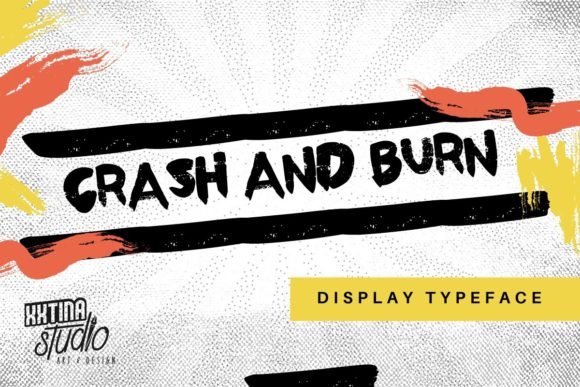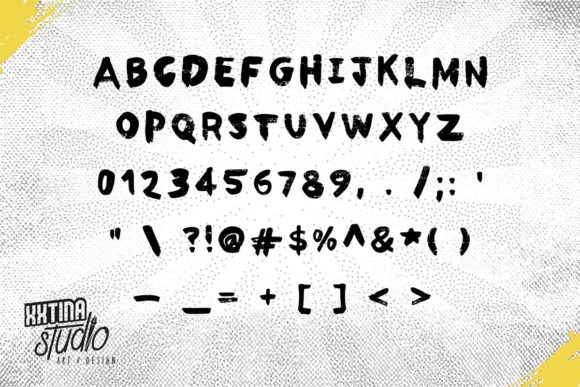
The Perfect Blend of Edginess and Style
We’ve all been there – staring at a blank canvas, a blank page, or a blank slate, trying to come up with the perfect idea to capture our audience’s attention. It’s those moments of creative frustration that often lead to the most innovative solutions. For designers, one of the most exciting moments is when a new font comes along and shakes things up. And that’s exactly what the Crash and Burn Font does – it brings a fresh, grunge-inspired aesthetic that’s guaranteed to make a statement.
With its all-caps display typeface and distressed, texturized look, the Crash and Burn Font is the perfect addition to any designer’s toolkit. Whether you’re working on a project that needs a bold, edgy vibe or something that’s a little more laid-back, this font has got you covered. Its versatility and unique style make it an invaluable resource for designers looking to take their work to the next level.
Crash and Burn Font Key Features
- Font Family: Crash and Burn Font is a unique display font designed to evoke a sense of intensity and energy.
- Unique Characteristics: Features a distressed, grunge aesthetic with bold lines and rough textures, adding a touch of edginess to any design.
Crash and Burn Font Review
Overall, I’m quite impressed with the Crash and Burn Font. ✨ It’s a bold and edgy font that’s perfect for projects that need a bit of an attitude. The font’s distressed texture and irregular shapes give it a unique, hand-drawn feel that’s hard to find in other fonts.
The font’s flexibility is also a major plus. ✨ It comes in a range of weights, from light to bold, making it easy to use in a variety of contexts. Plus, the font’s open license means you can use it for personal or commercial projects without worrying about licensing fees.
However, there are a few limitations to consider: ⚠️ The font’s texture can be a bit overwhelming in large blocks of text, and the irregular shapes can make it difficult to read at small sizes. Additionally, the font’s style may not be suitable for projects that require a more polished or professional look.
Here are a few things to keep in mind when using the Crash and Burn Font:
- Use it sparingly to add emphasis or create visual interest.
- Avoid using it for large blocks of text.
- Experiment with different weights and styles to find the right fit for your project.
Overall, I think the Crash and Burn Font is a great choice for projects that need a bold and edgy look. With a bit of creative planning, you can use it to add some serious attitude to your design.
Tips for Getting the Most Out of the “Crash and Burn Font”
To get the most out of the “Crash and Burn Font,” try the following:
- Use it sparingly to add emphasis and create visual interest.
- Pair it with other bold and distressed fonts for a unique look.
- Experiment with different font sizes and styles to create a dynamic effect.